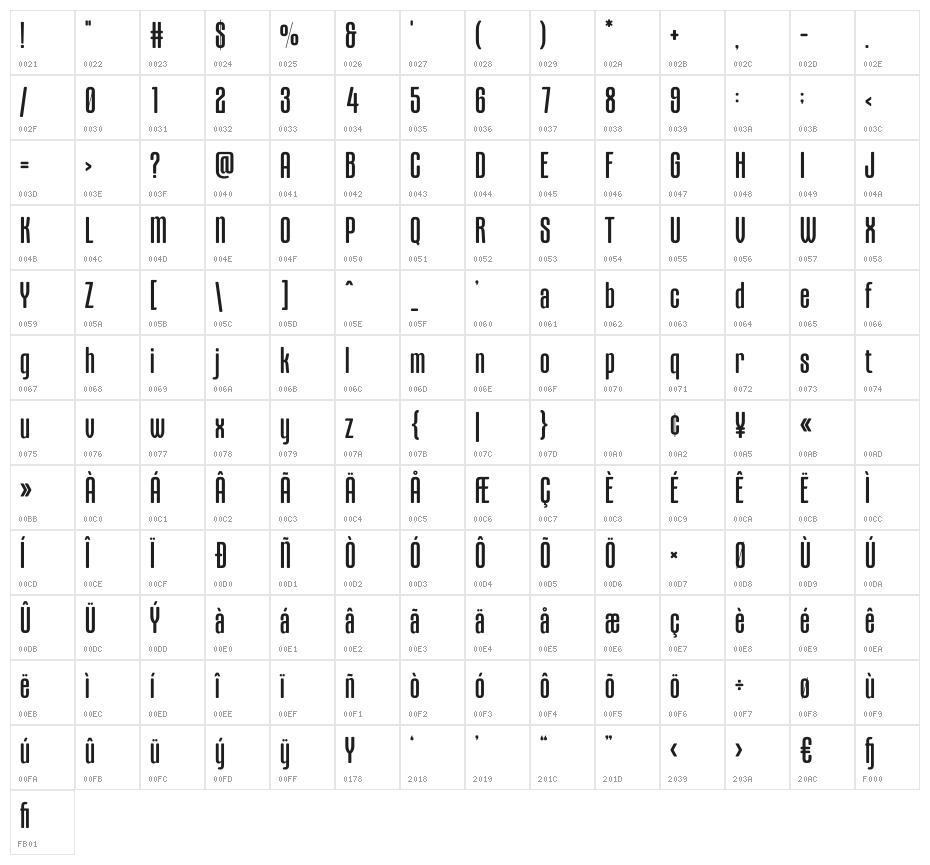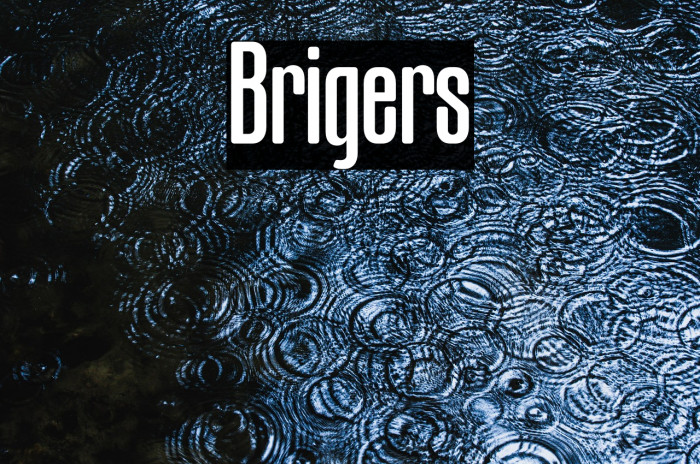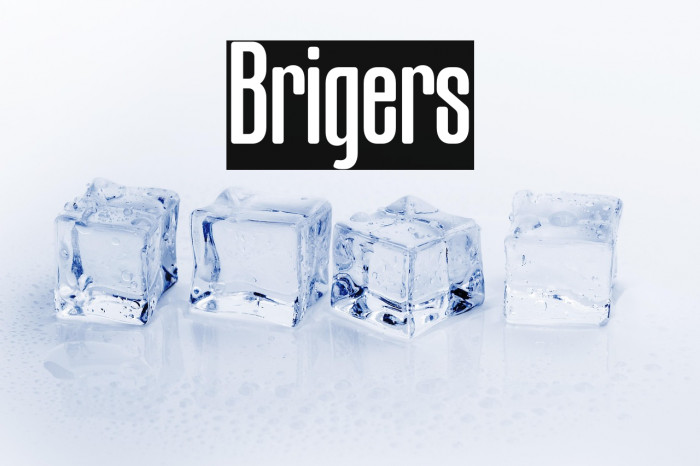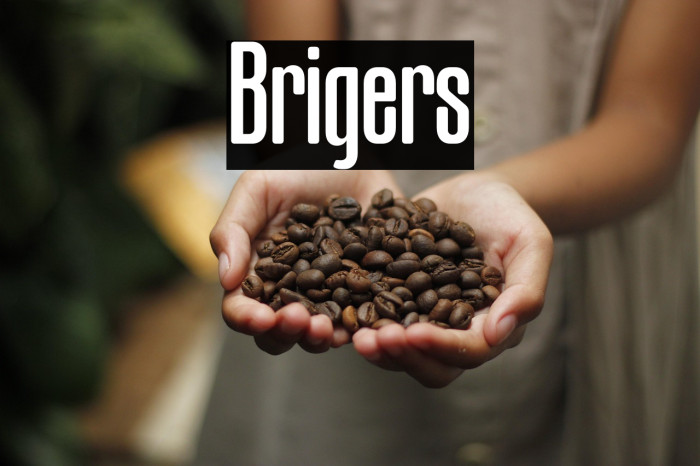
Brigers Font
Brigers Description
This font features a tall, condensed style with a modern and sleek appearance. The characters are elongated with a consistent stroke width, giving it a uniform and structured look. The uppercase and lowercase letters maintain a similar height, enhancing its compact design. The numerals and special characters follow the same condensed style, ensuring a cohesive visual identity across all elements. The font's clean lines and minimalistic approach make it suitable for contemporary design projects.
| Width | Condensed |
| Proposed Projects | Ideal for branding, posters, headlines, and modern digital interfaces. |